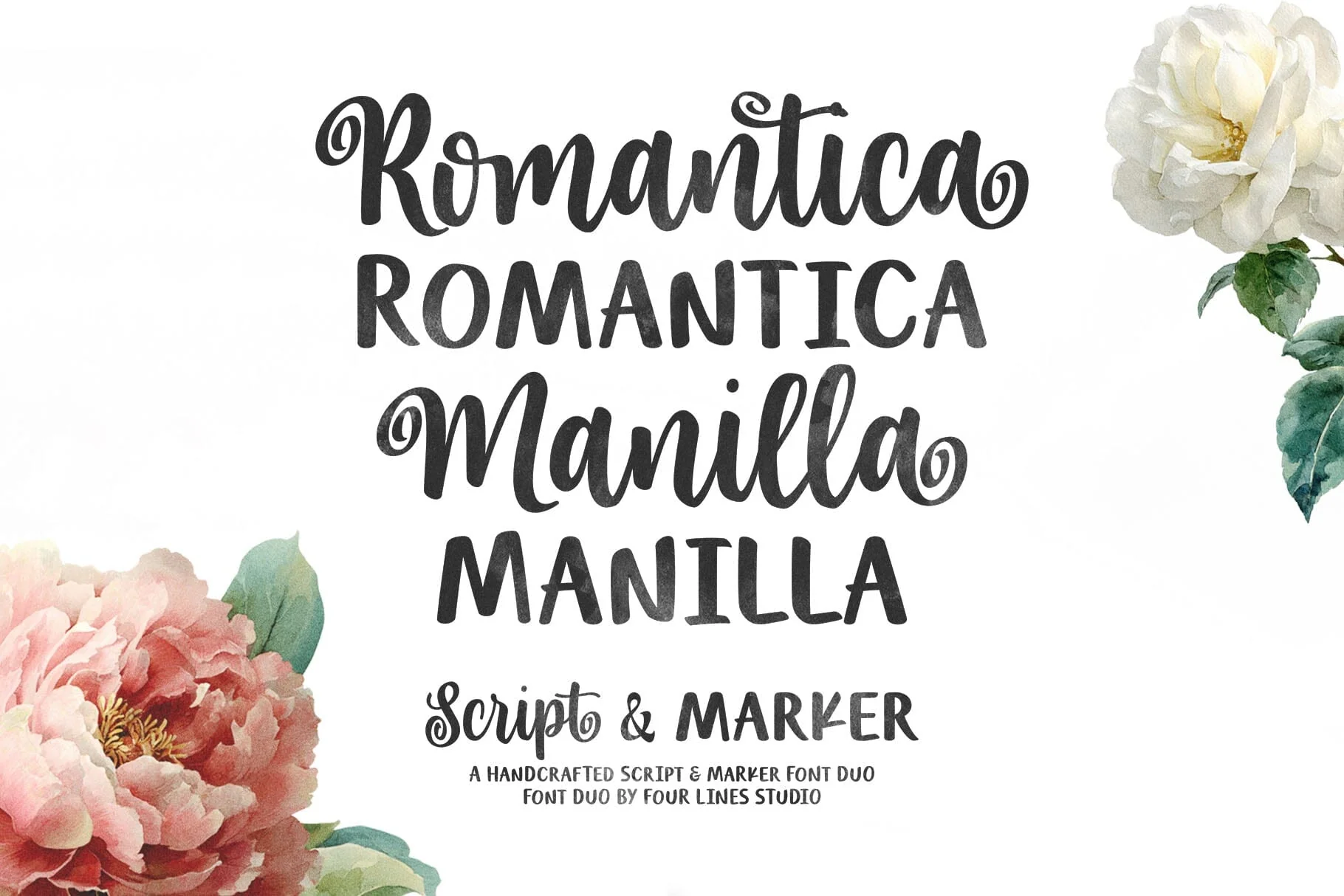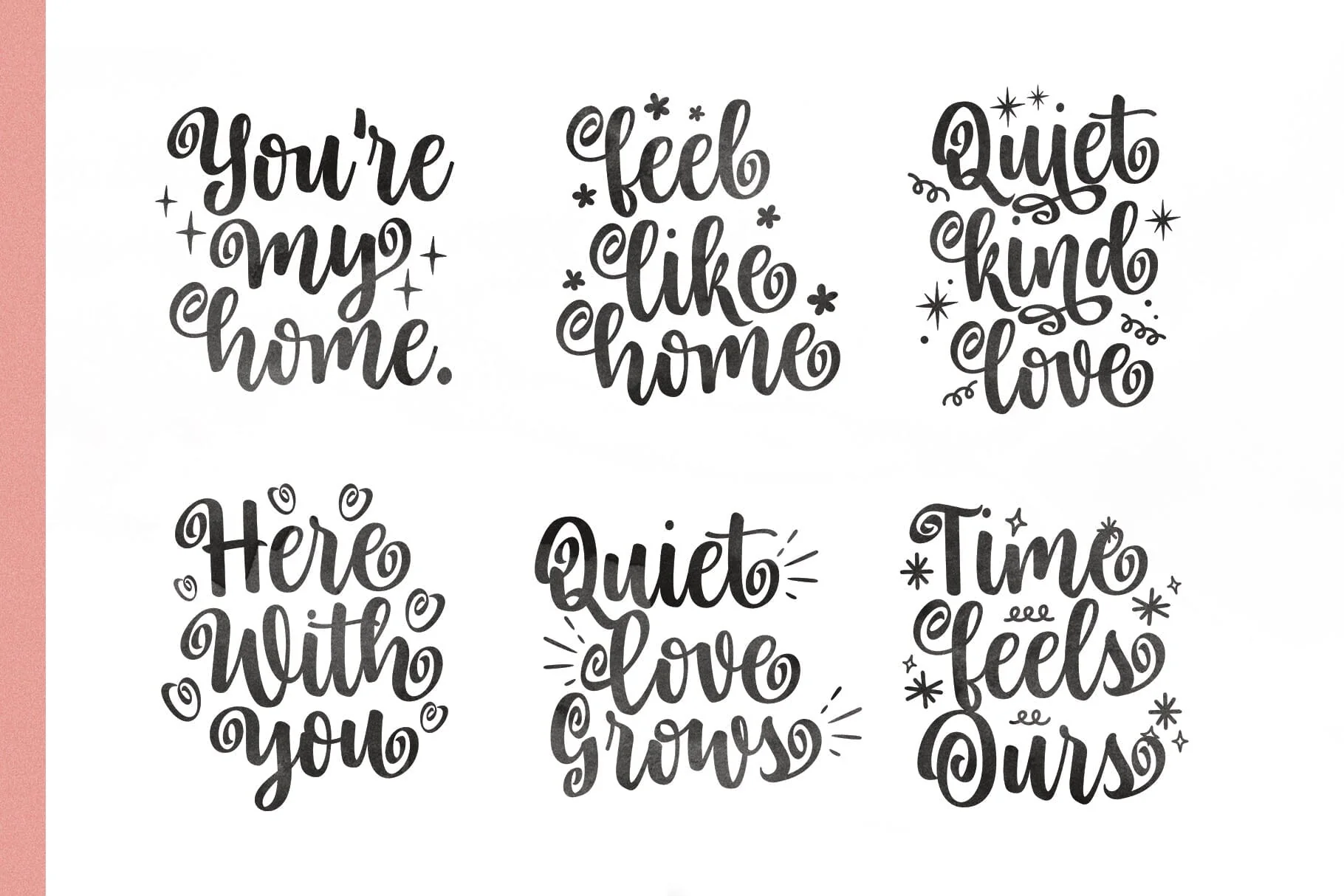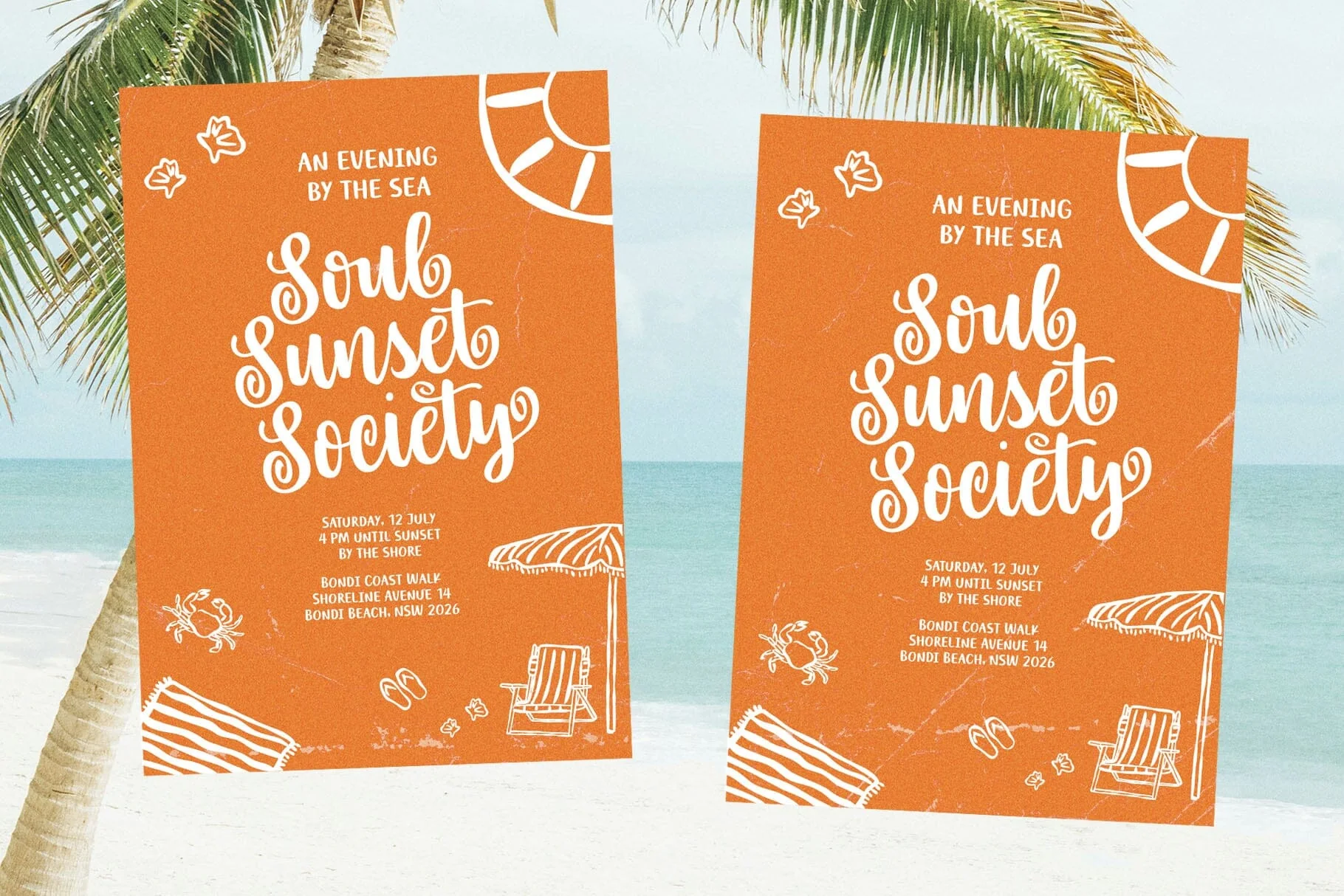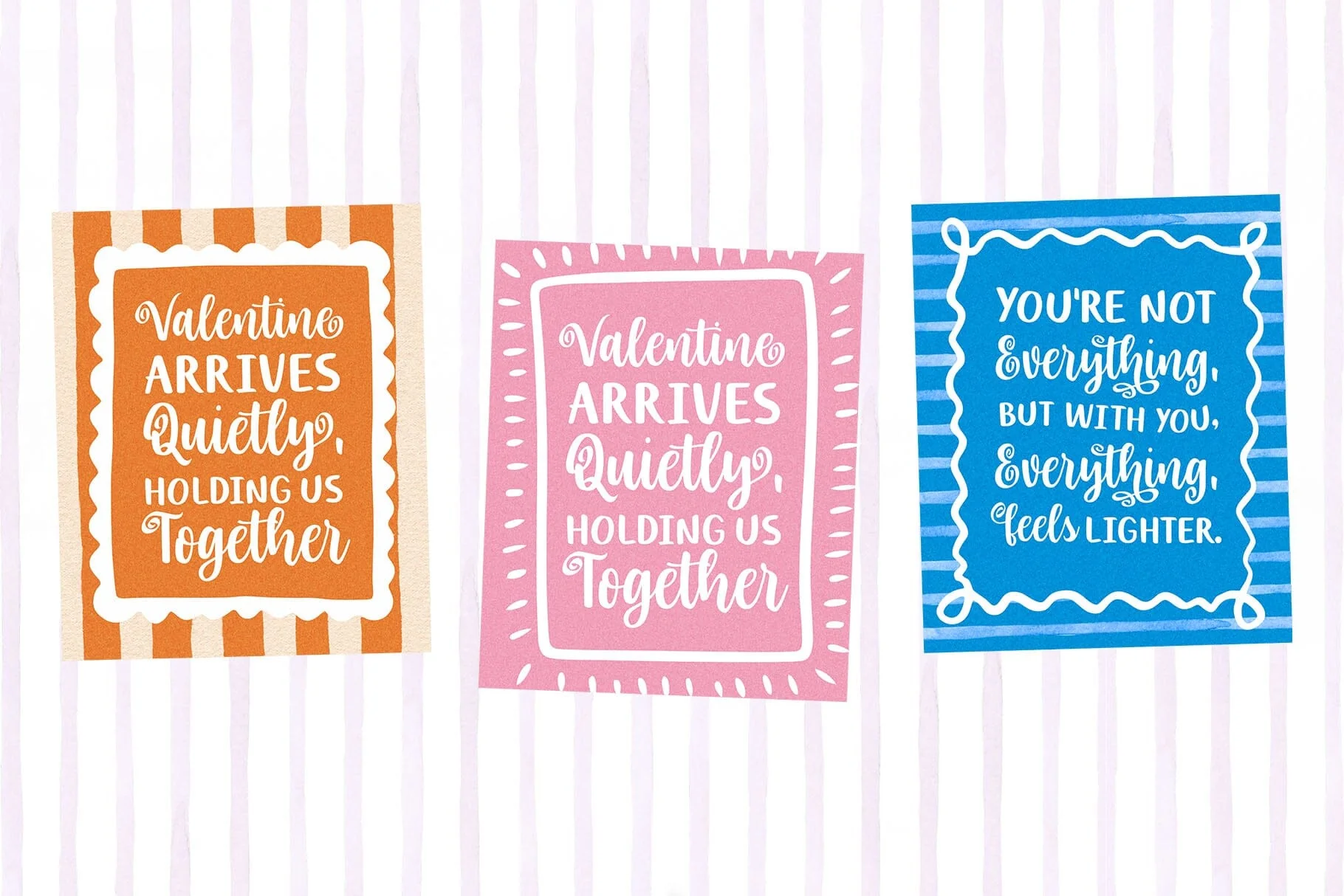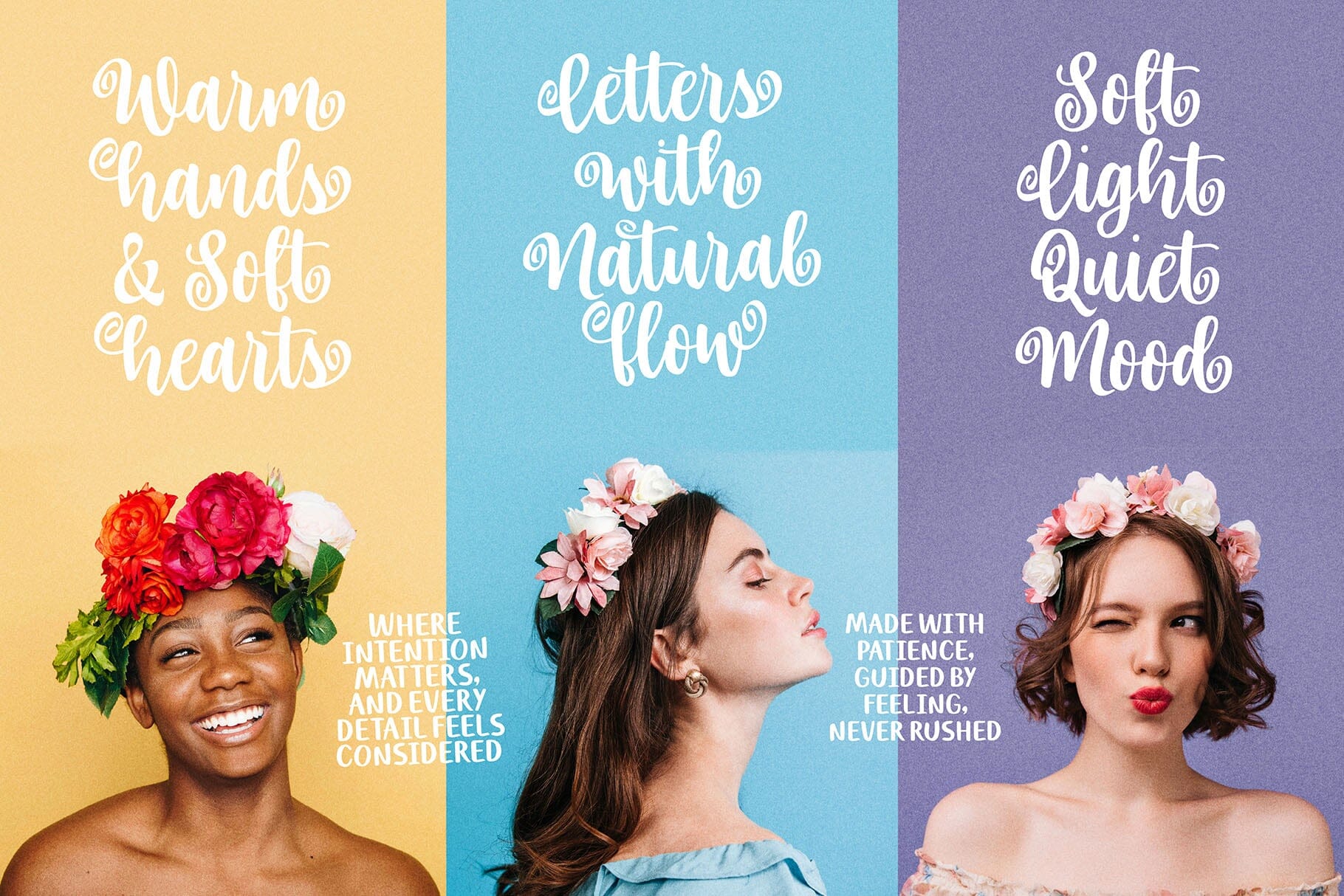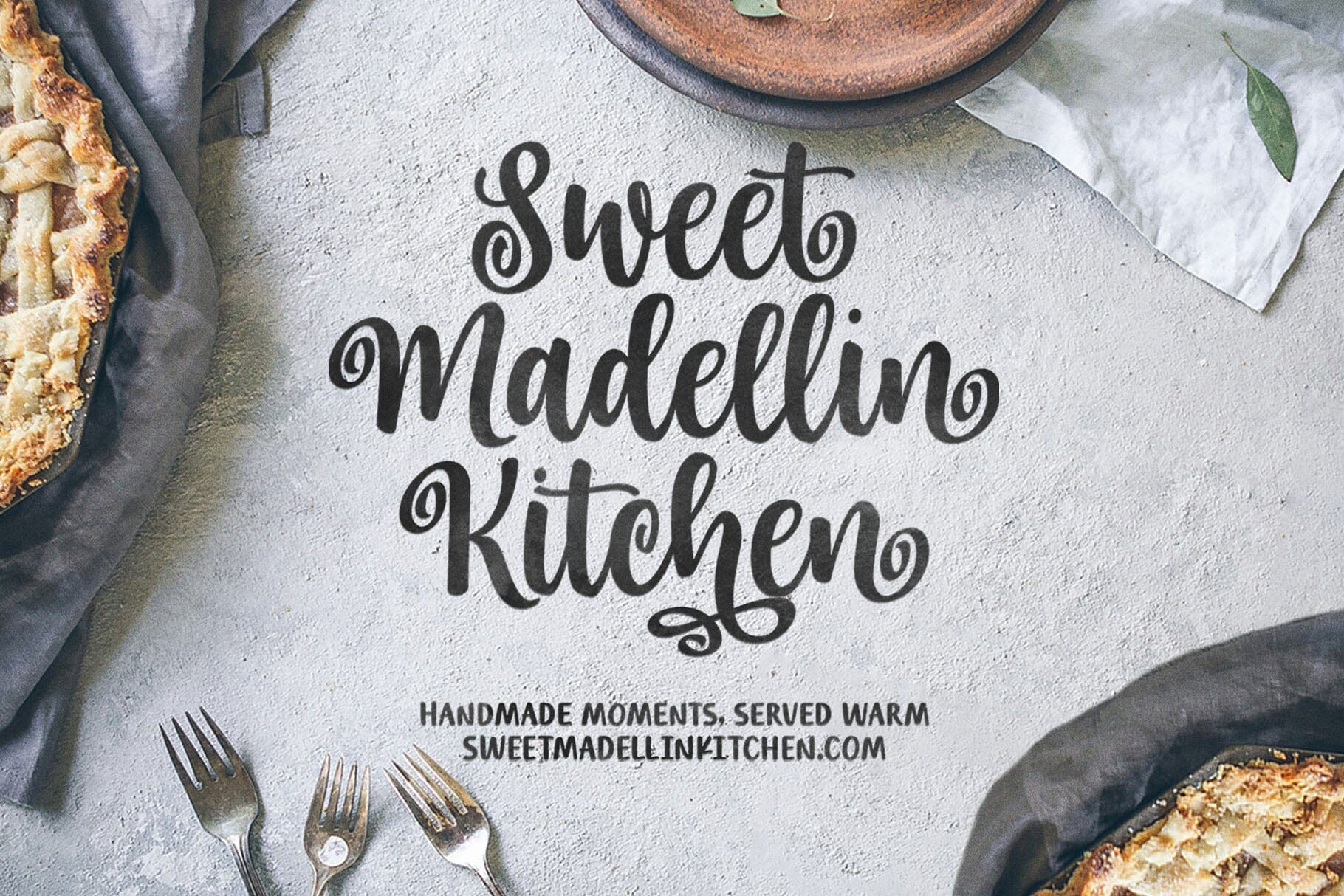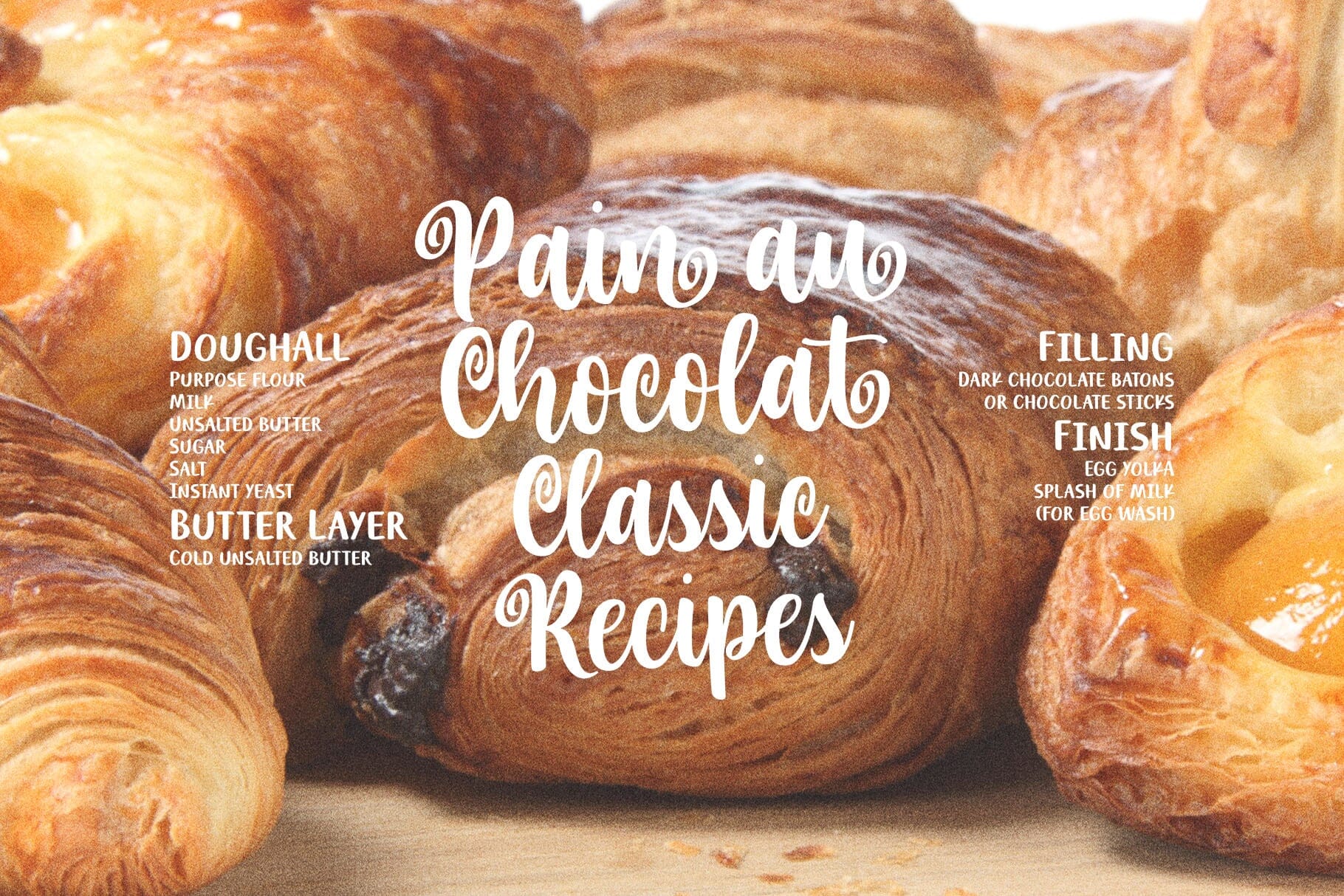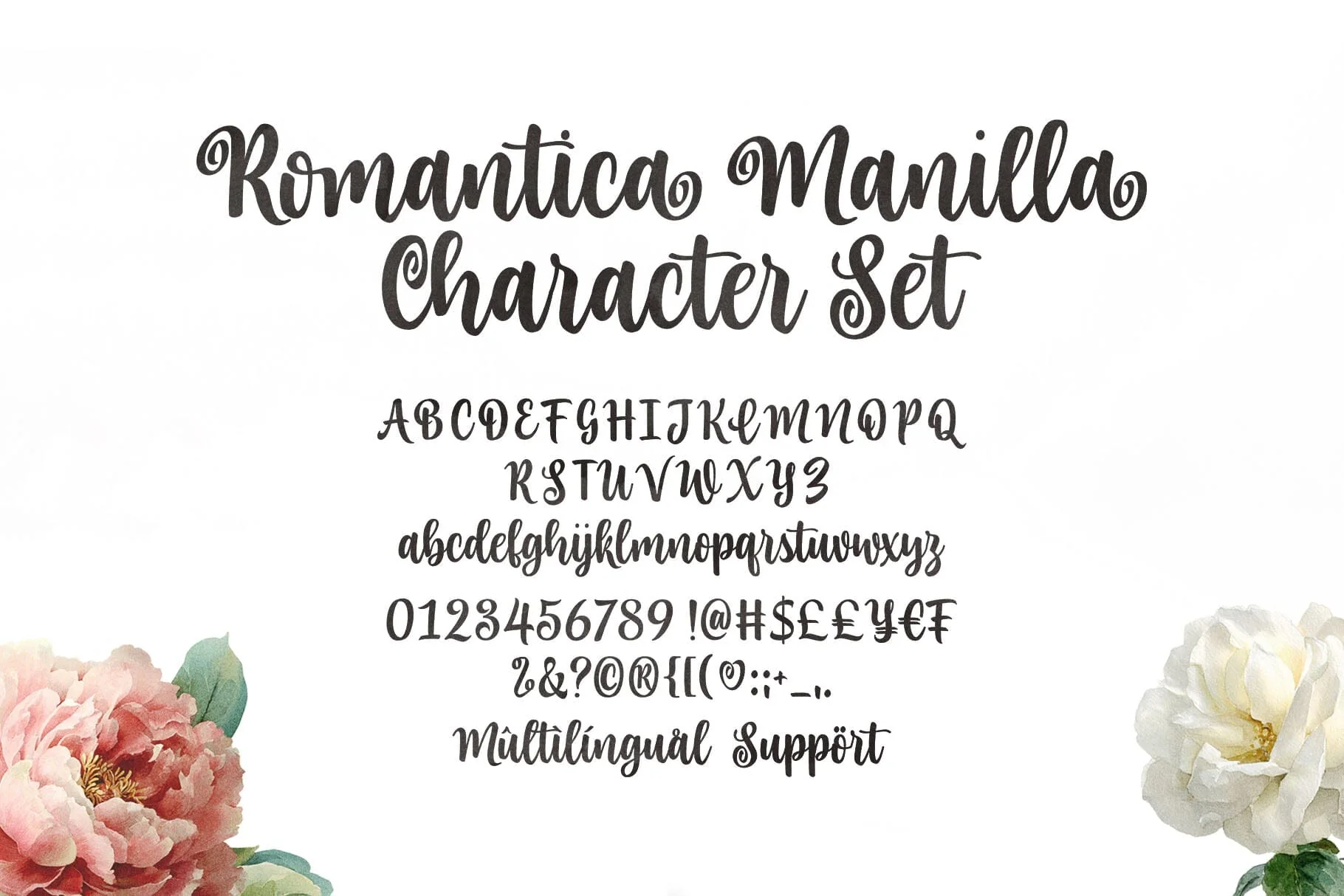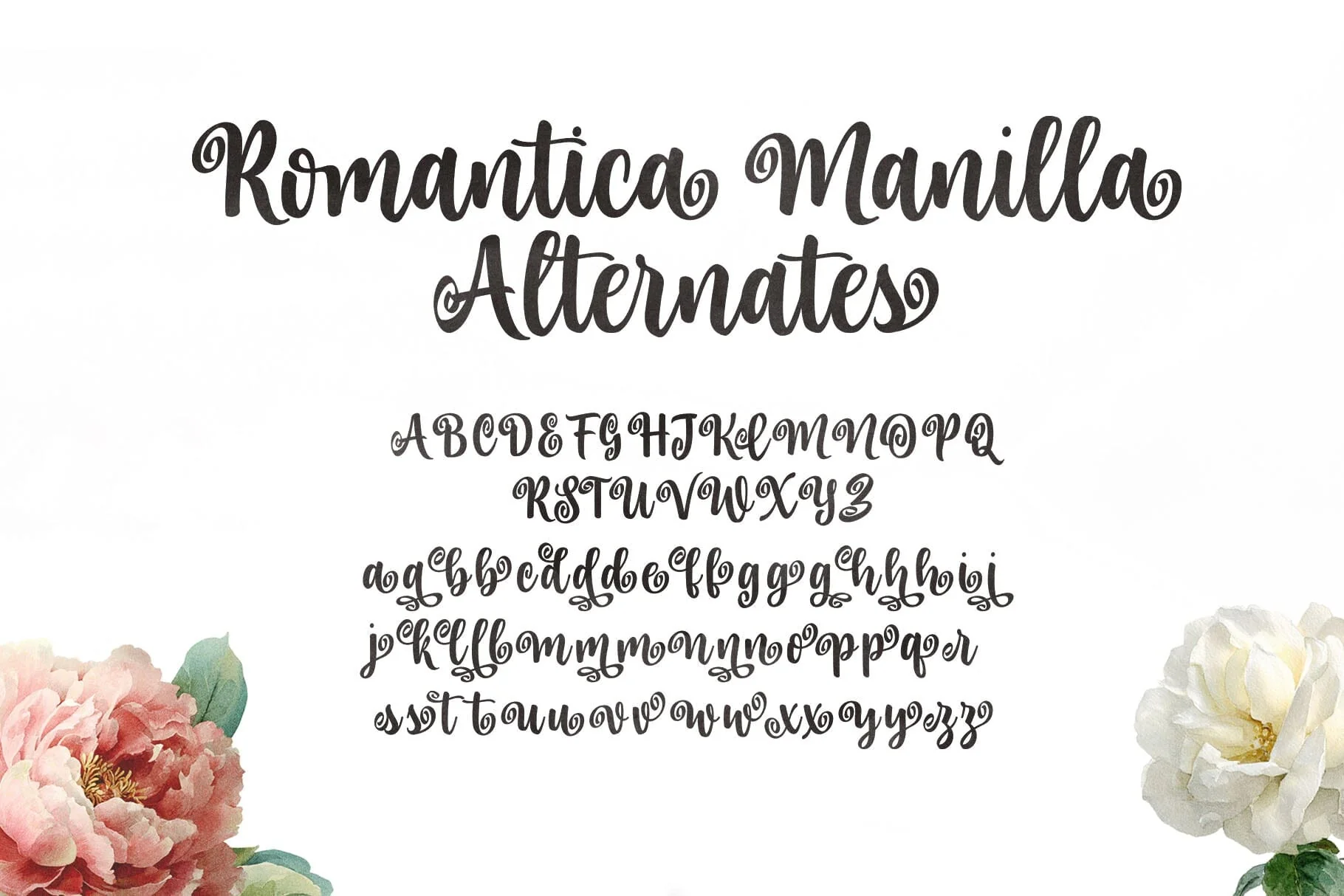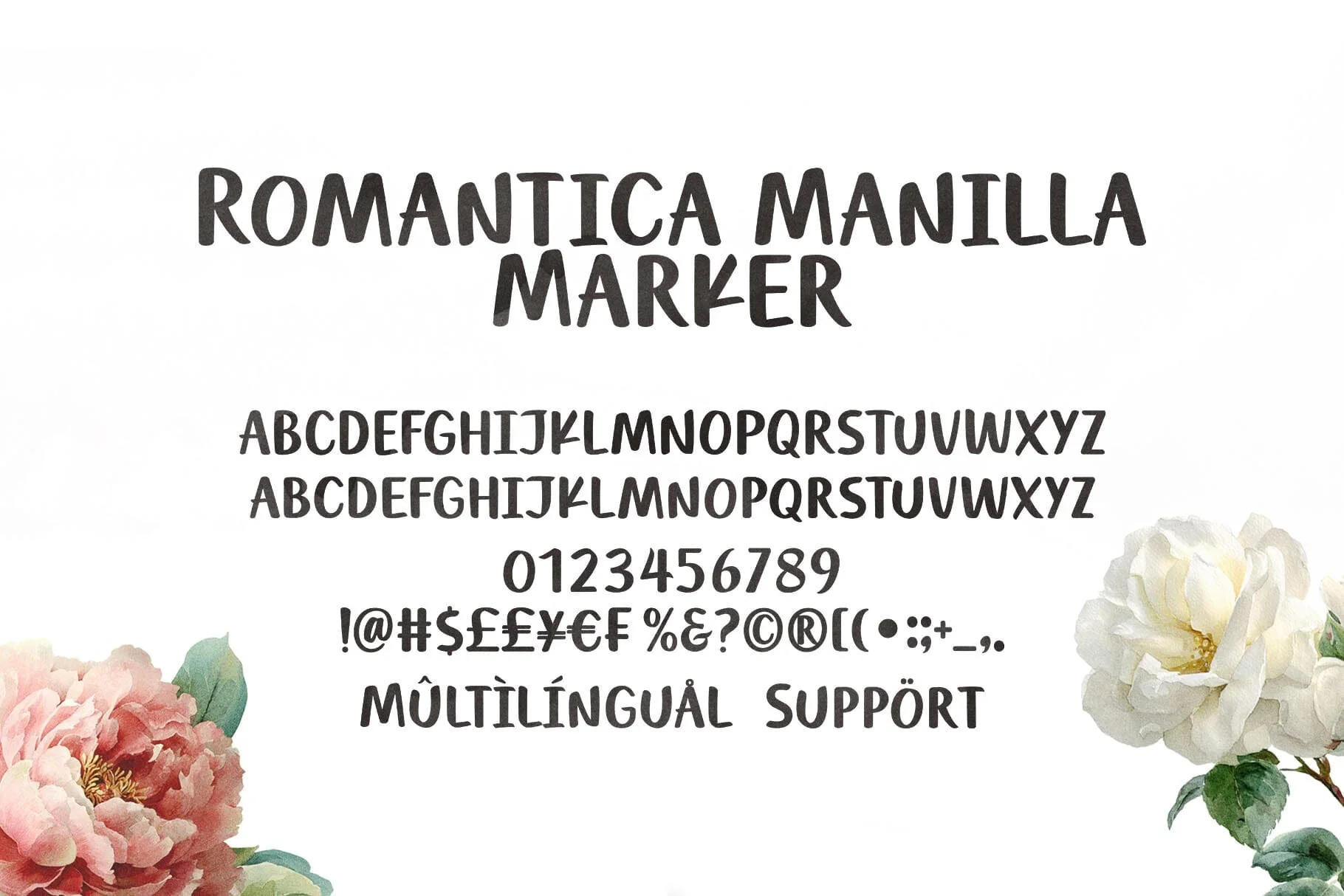
Romantica Manilla – A Handcrafted Script and Marker Font Duo
Romantica Manilla is a font duo that combines a soft, decorative script with an honest and expressive marker font. The script flows with rounded, curly letterforms full of romantic character, while the marker serves as a clean, relaxed, and highly legible companion. Together, they are designed to complement each other, creating a balanced harmony between emotion and clarity.
Inspired by the warmth of natural handwritten lettering, Romantica Manilla is ideal for designs that aim to feel personal, sweet, and approachable. It works beautifully for greeting cards, wedding stationery, inspirational quotes, product packaging, creative branding, and social media content.
The font includes alternates and ligatures in the script style to add natural visual variation, along with a complete character set, numerals, punctuation, and multilingual support, making it flexible for a wide range of design applications.